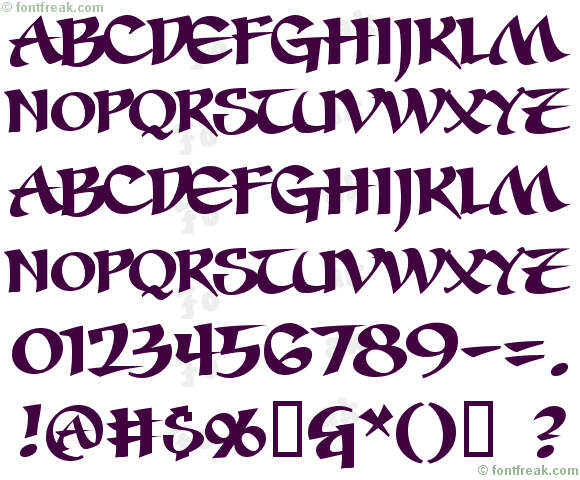
Seven Swordsmen BB
About Seven Swordsmen
The Seven Swordsmen font by Blambot Fonts is a striking display typeface that captures the essence of adventure and bold storytelling. This unique font, released in 2004, is characterized by its dynamic stroke weight and robust forms, making it an excellent choice for projects that require a touch of drama and flair. The design features a playful yet powerful aesthetic, with well-defined characters that showcase a moderate contrast in stroke thickness, adding depth and visual interest to any text.
Seven Swordsmen’s distinctive style is marked by its decorative elements, which evoke a sense of heroism and fantasy. The characters exhibit a slightly irregular spacing that contributes to its unconventional charm, making it stand out in a variety of applications. This font is particularly well-suited for use in comic books, fantasy-themed event posters, and graphic novels, where it can convey narrative excitement and engage readers. Additionally, it can be a fantastic choice for branding in gaming or martial arts ventures, as well as eye-catching signage for themed restaurants or bars.
What sets the Seven Swordsmen font apart is its ability to blend boldness with a whimsical touch, making it a memorable choice for any design. Whether you are crafting an epic movie poster or a captivating book cover, the Seven Swordsmen font free download ensures that your work will capture attention and inspire imagination.